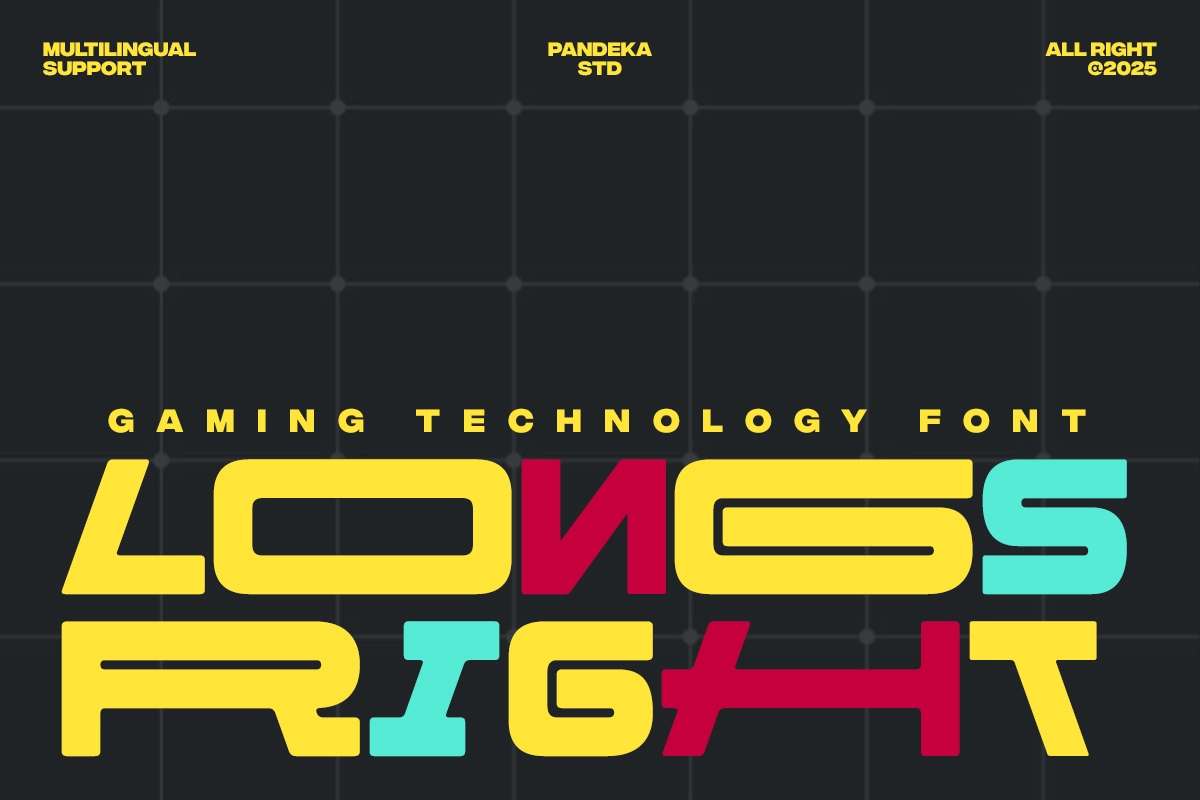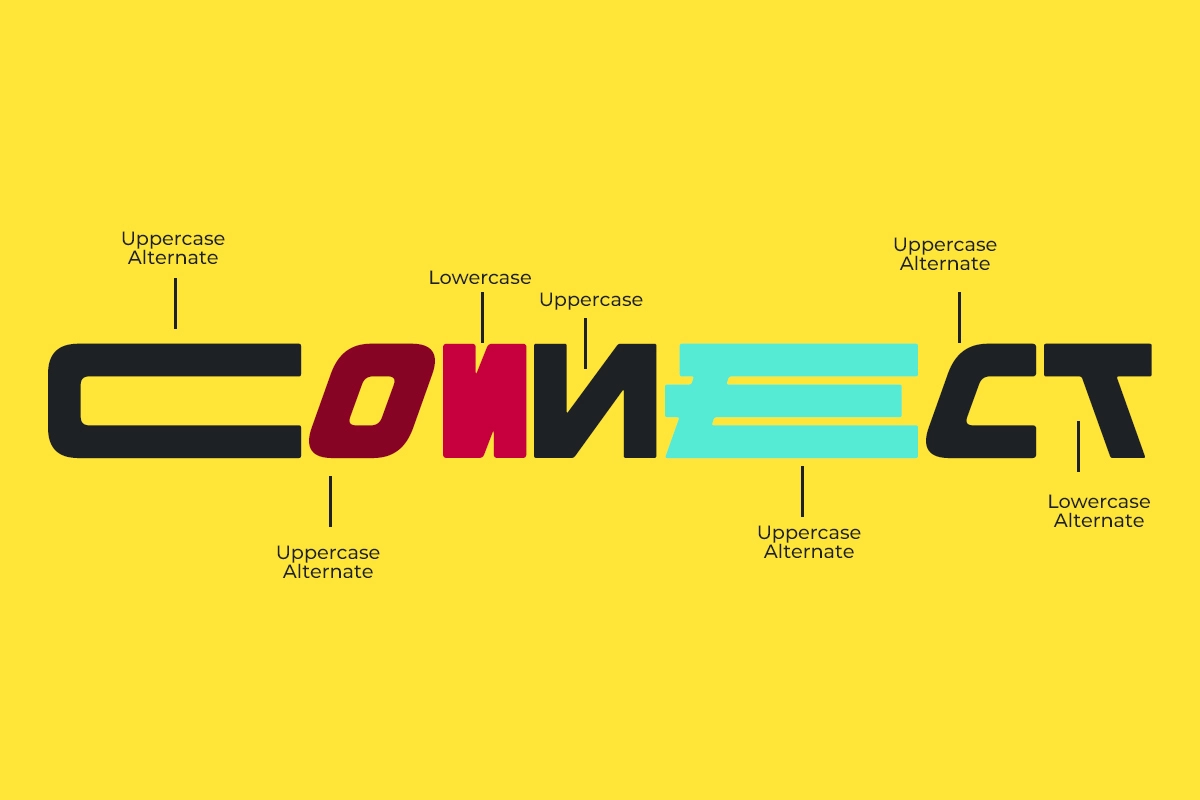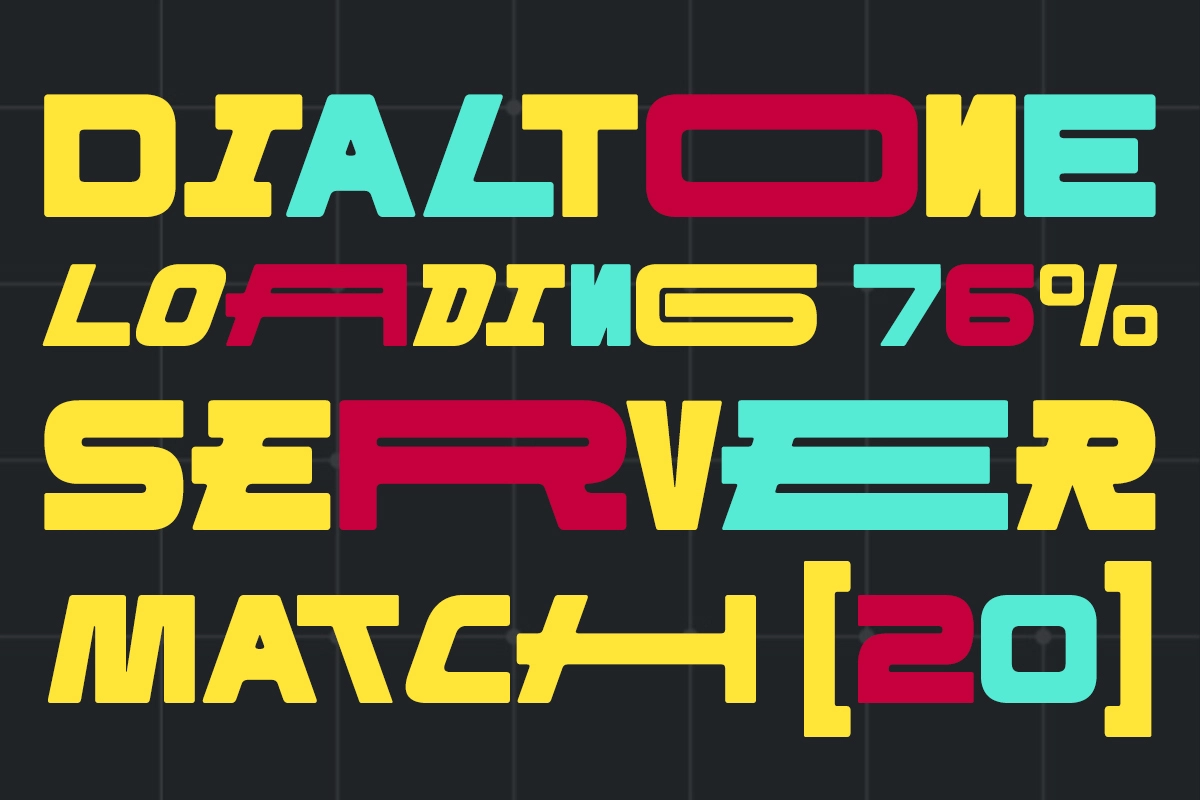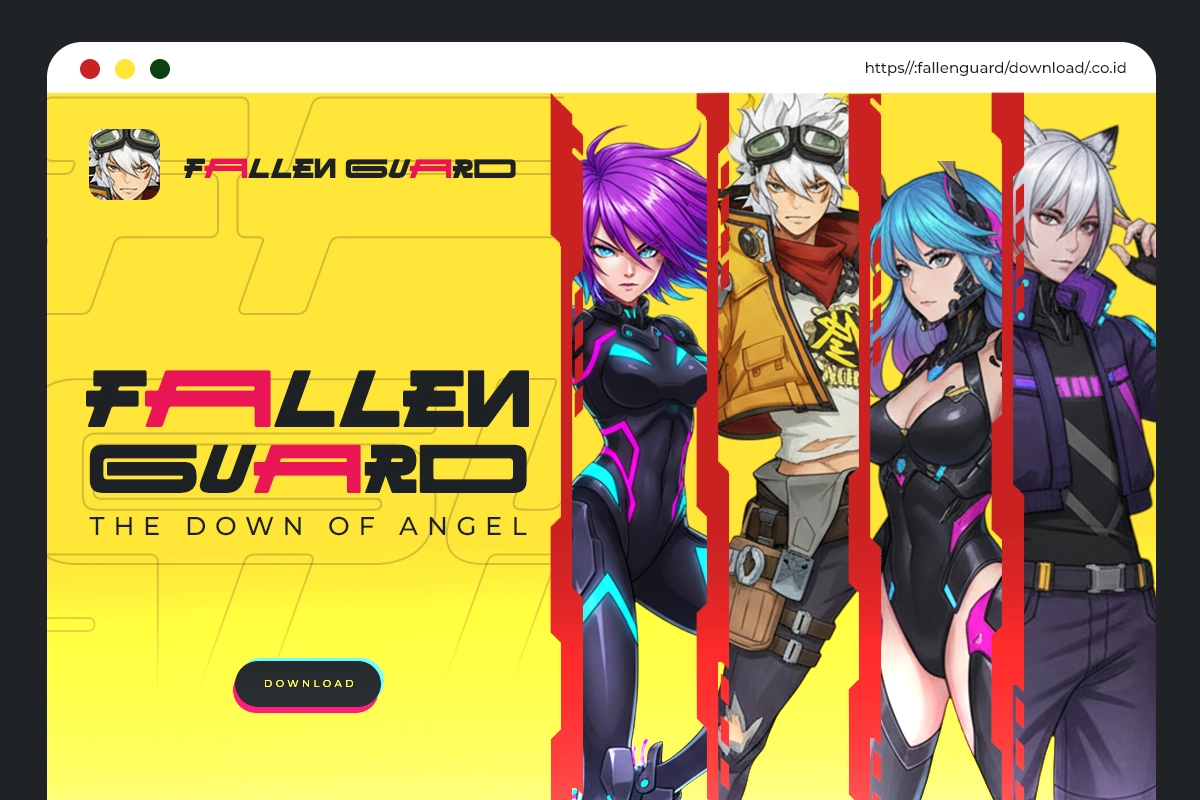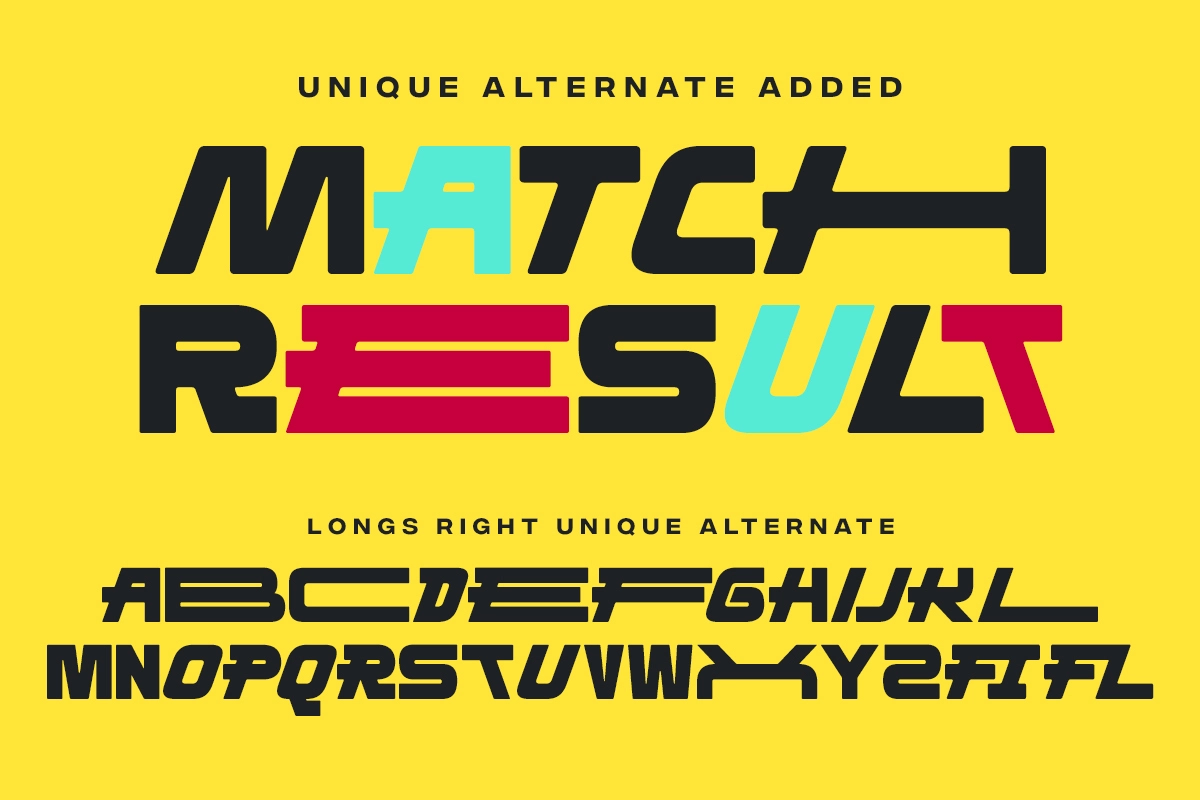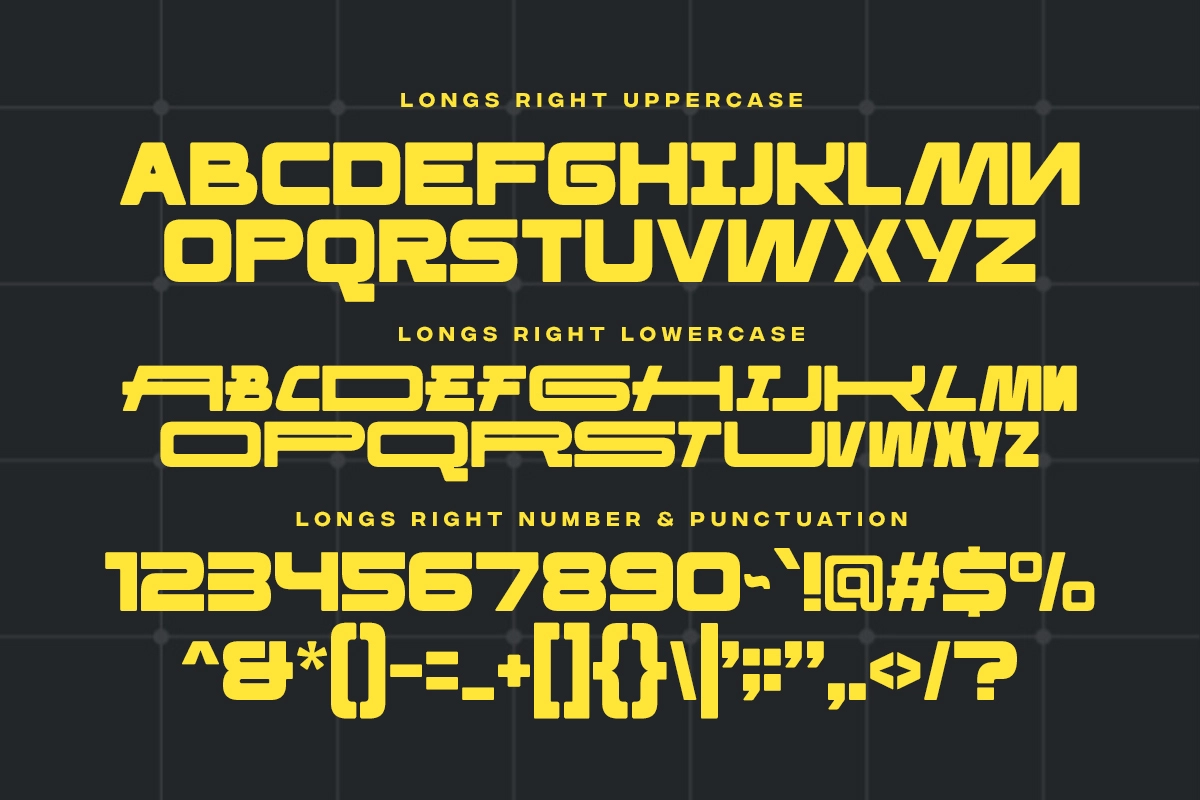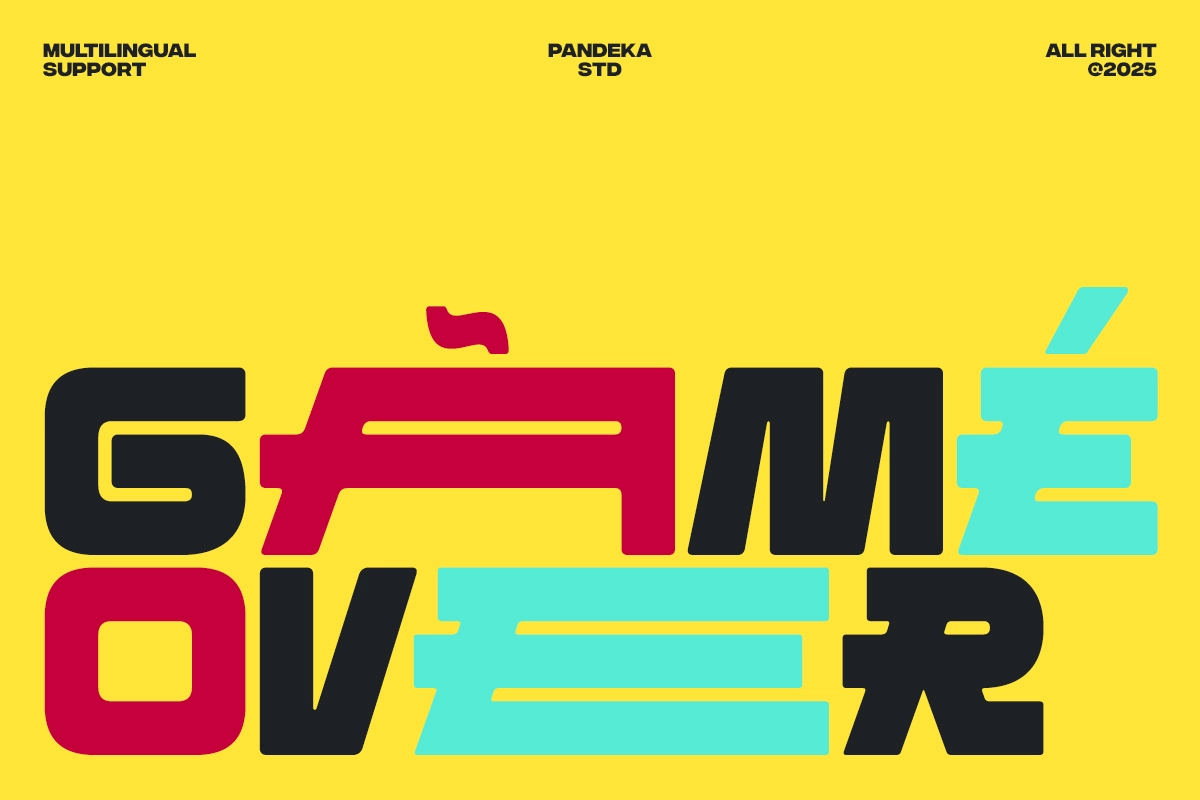
Longs Right - Gaming Technology Font
Longs Right
Longs Right cuts letters from sharp diagonal shears and angular counters, landing closer to a HUD readout than a standard grotesk — a tech font built for esports branding and gaming interfaces. Strokes stay slab-flat and confident, with single-story forms that hold their edge at both poster scale and small UI labels. Twenty-one-plus alternates swap in sharper cuts for select letters, so titles can push further into a broken, glitch-adjacent look without switching styles.
Use it for esports team logos, gaming titles, streaming overlays, tournament brackets, app dashboards, tech branding, poster headlines, and merch prints.